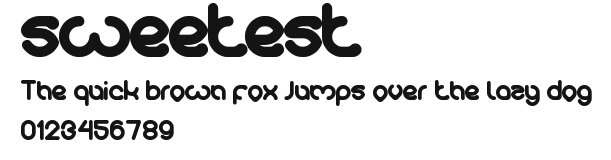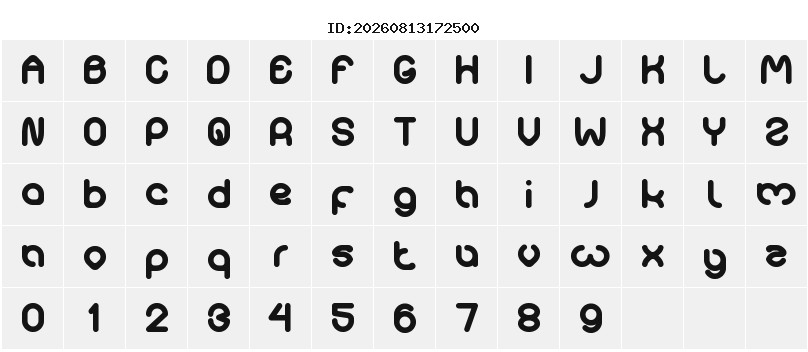
sweetest Preview
• Font Name: sweetest
• Full Font Name: sweetest
• Version: Version 1.00 September 16, 2011, initial release
About sweetest.ttf
sweetest.ttf is a modern, elegant sans-serif font designed for ultimate readability and visual harmony. Perfect for branding, headlines, web design, and print materials.